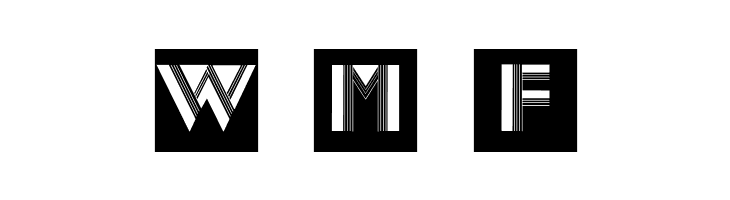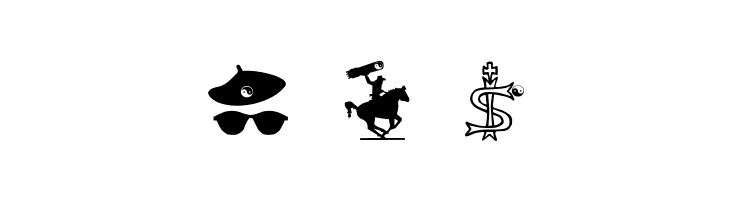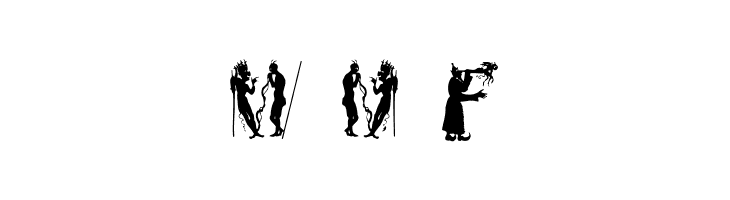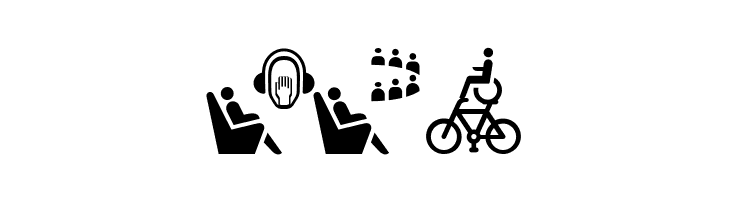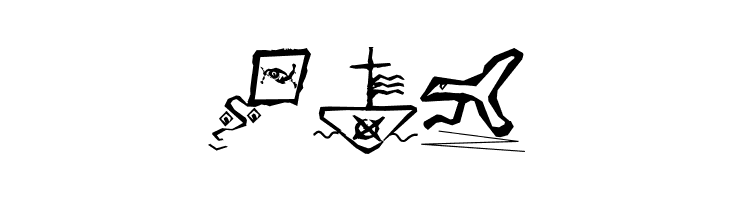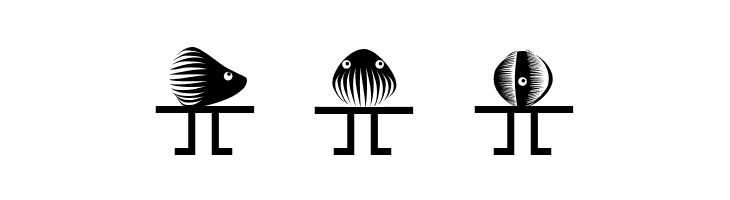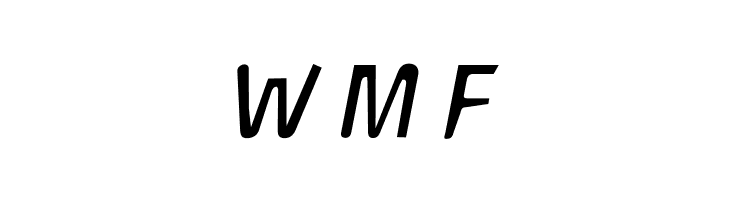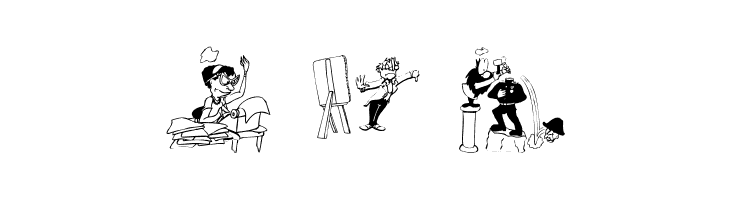
• Schraffura
A bold, geometric font with high contrast and decorative striped patterns.
• QuestionsOfBranding
A creative pictogram font with diverse, surreal icons for each character.
• SilhousForJeff
A decorative display font featuring intricate silhouette designs within each character.
• EgyptChildren
Decorative pictogram font inspired by Egyptian hieroglyphs.
• DadadaBats
A versatile set of clear and simple pictograms for public and transportation use.
• VectorizedSignets
A collection of abstract, hand-drawn symbols with a tribal and artistic aesthetic.
• WhoIsTheTerrorist
A playful, bird-themed decorative display font with bold, abstract shapes.
• ArtElements
A decorative font with intricate, artistic designs on each character.
• DeconStruct-LightOblique
A sleek, modern light oblique font with a dynamic appearance.
• SomeArtistsOne
Cartoonish, artist-themed pictorial font with each character as a unique illustration.